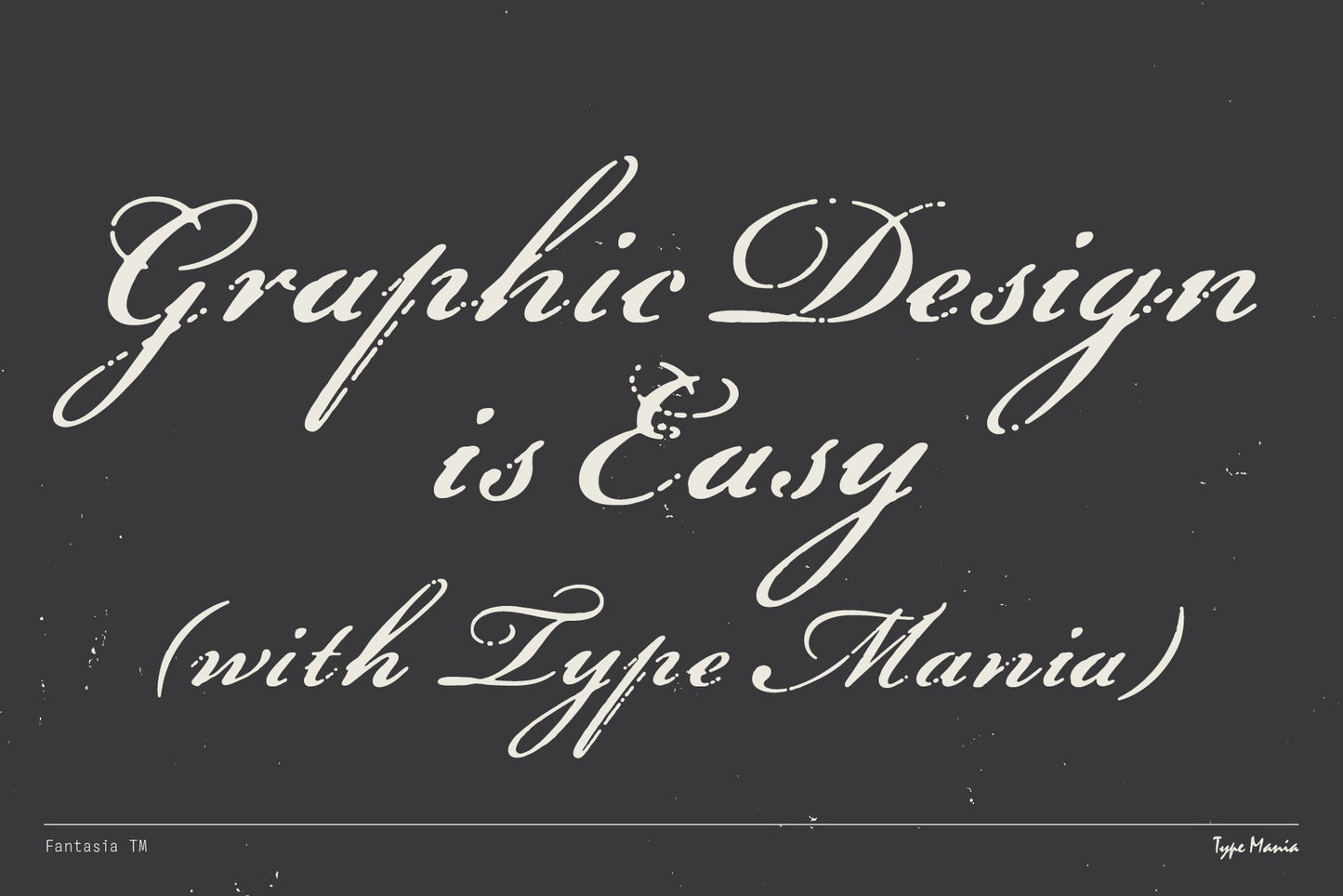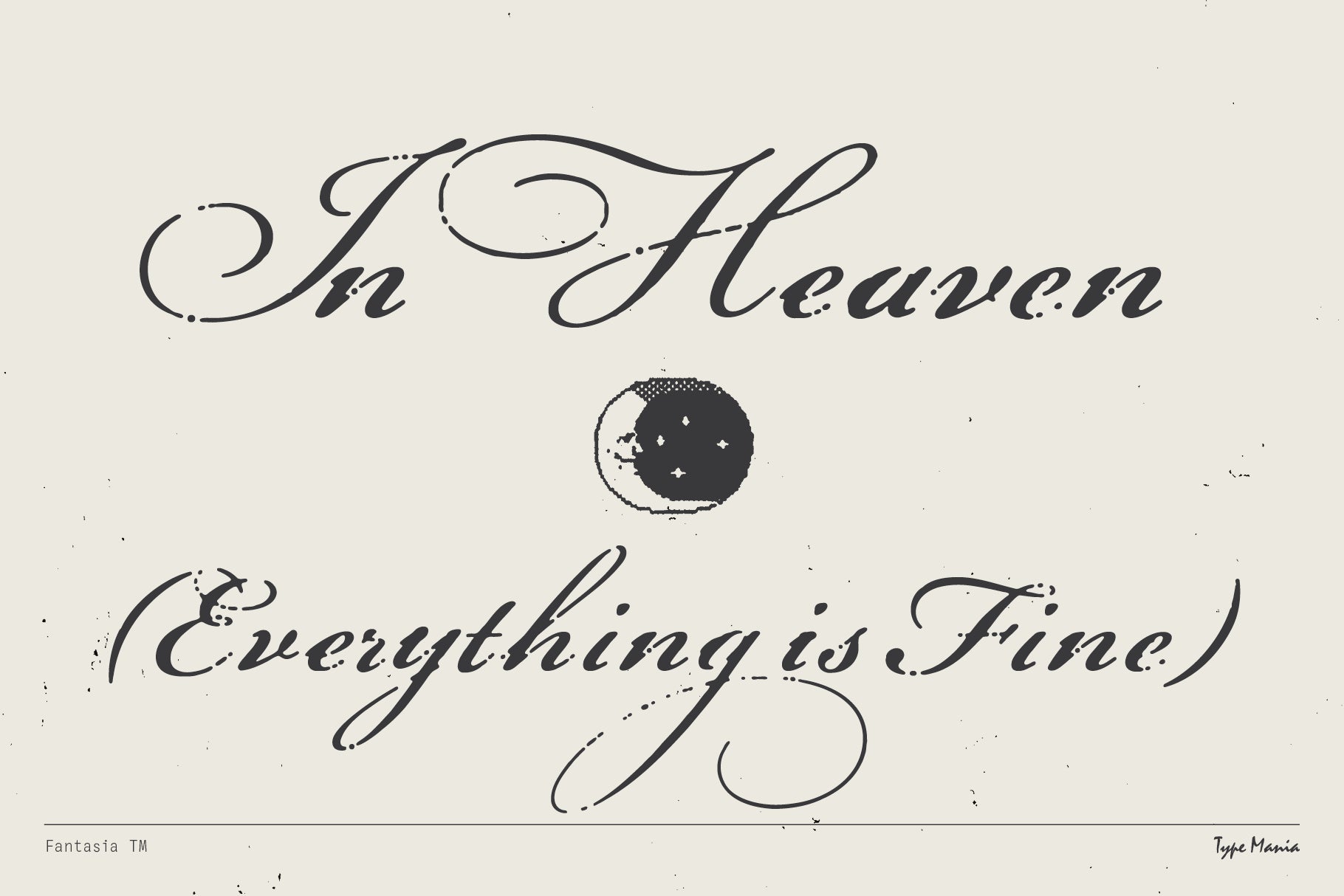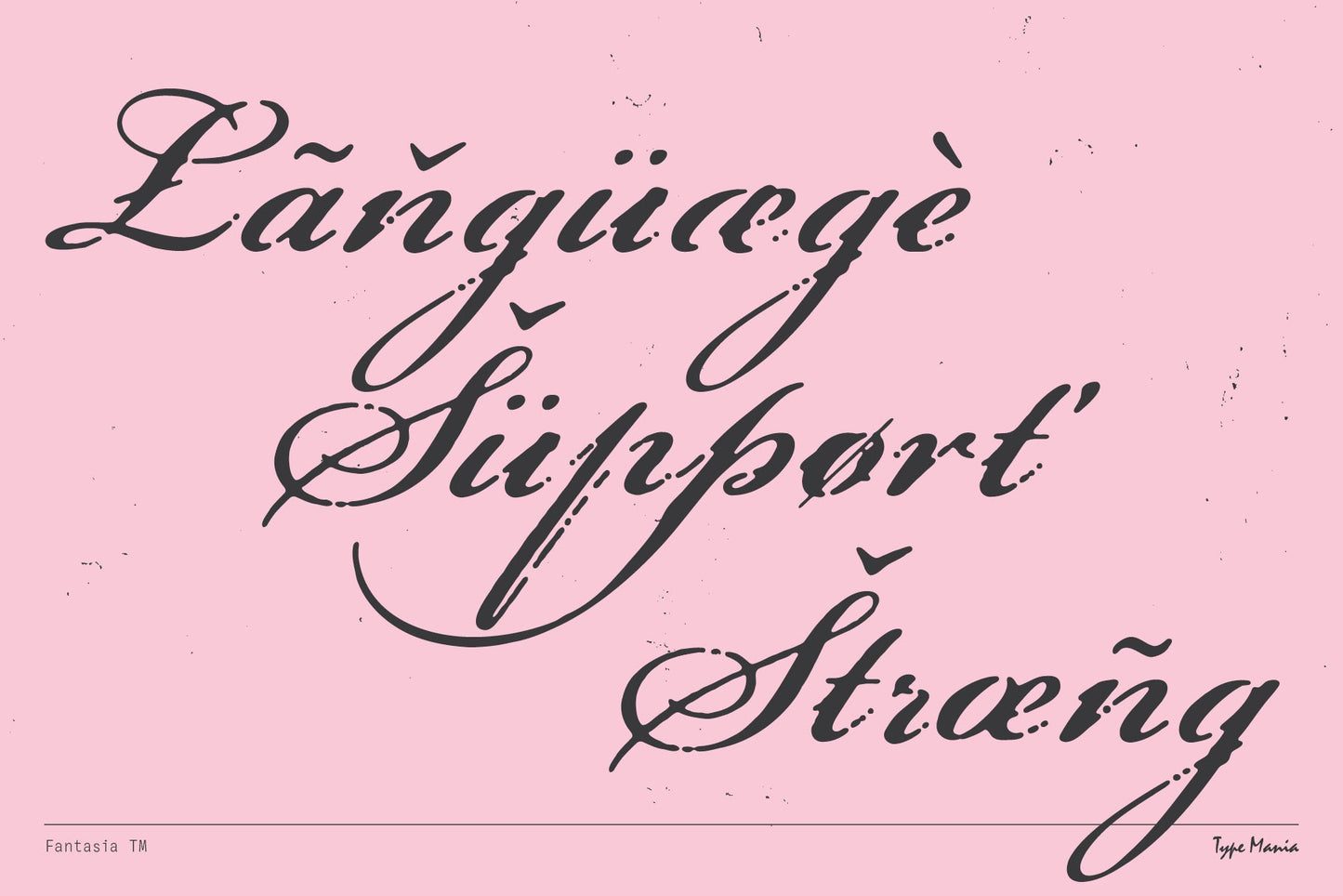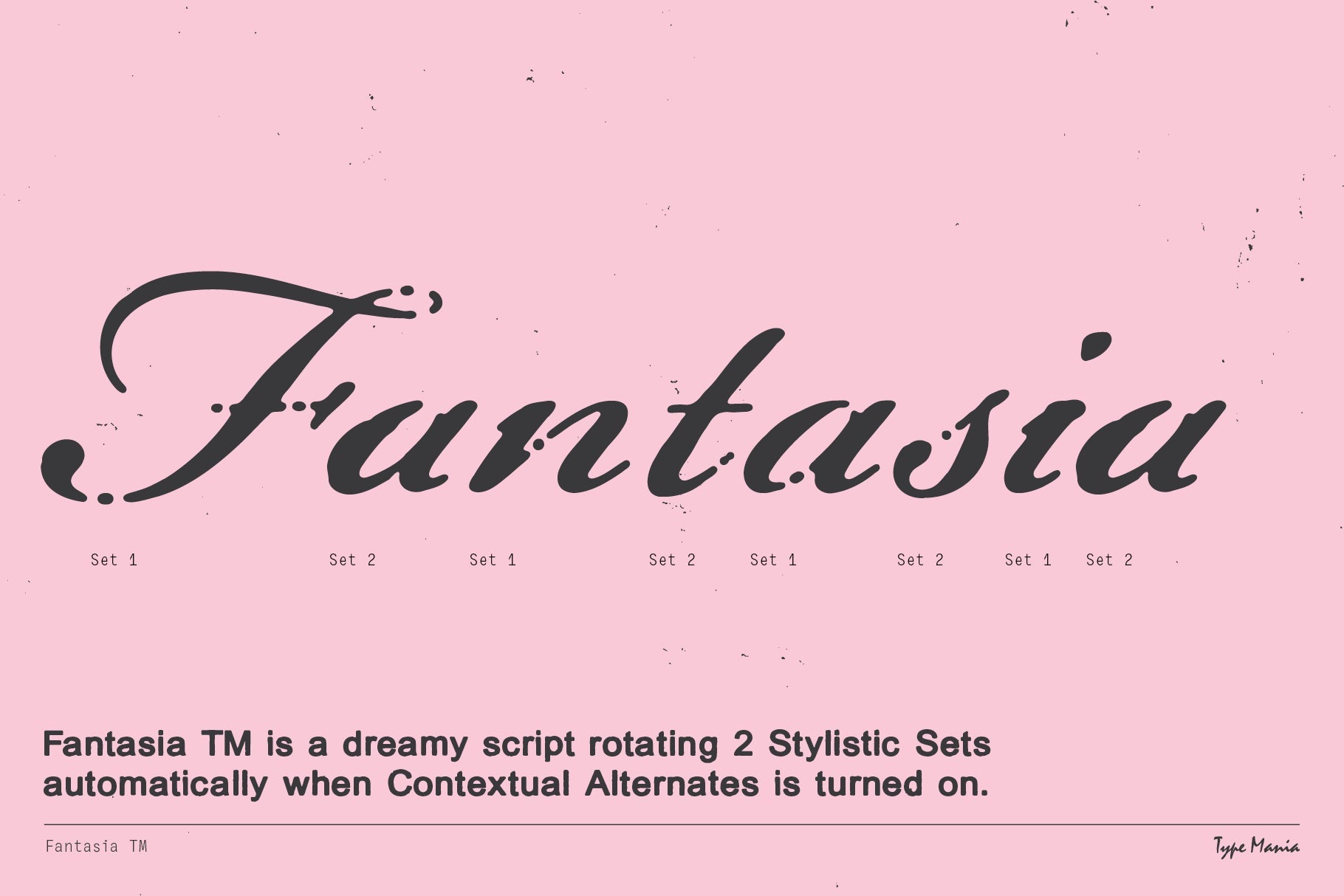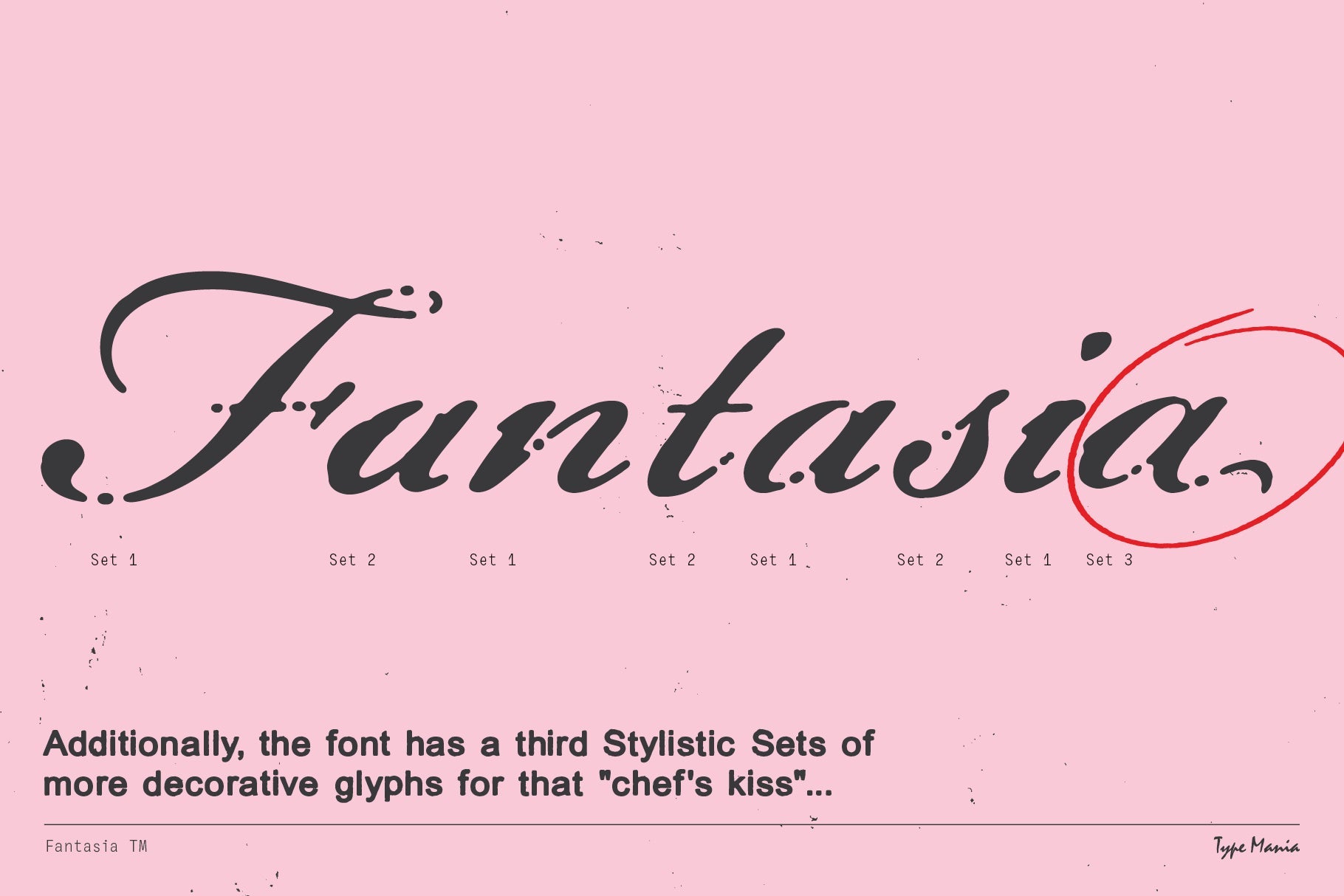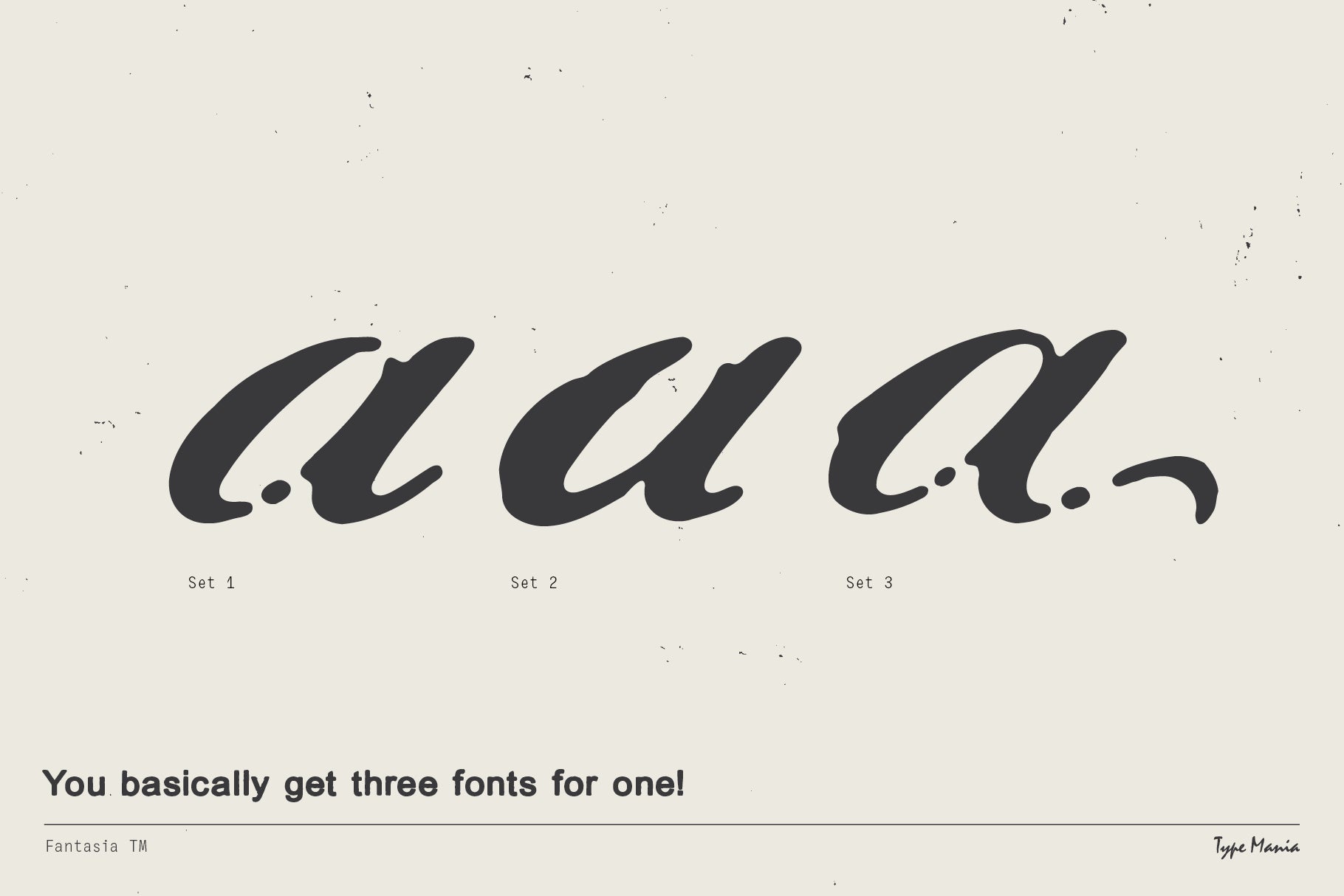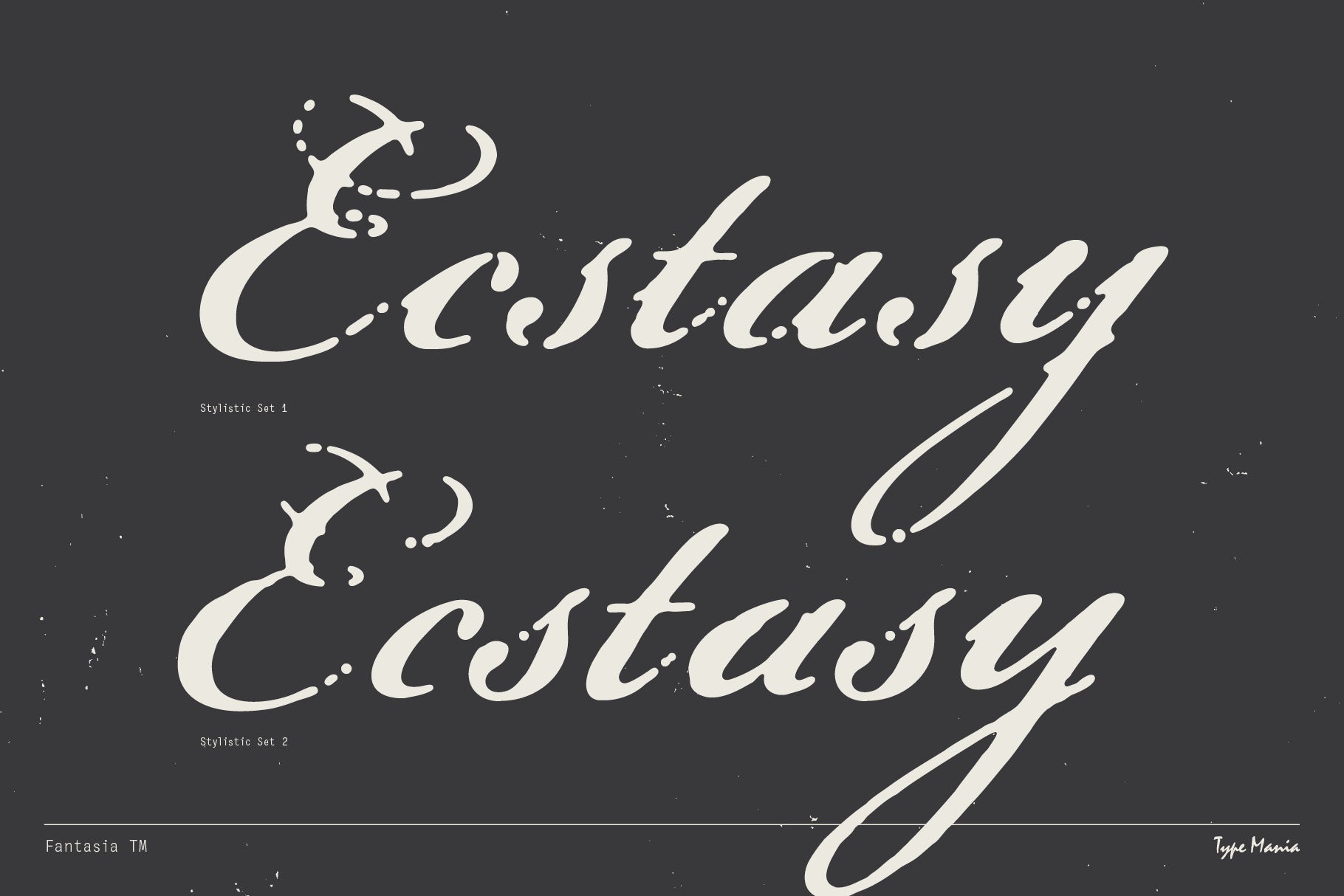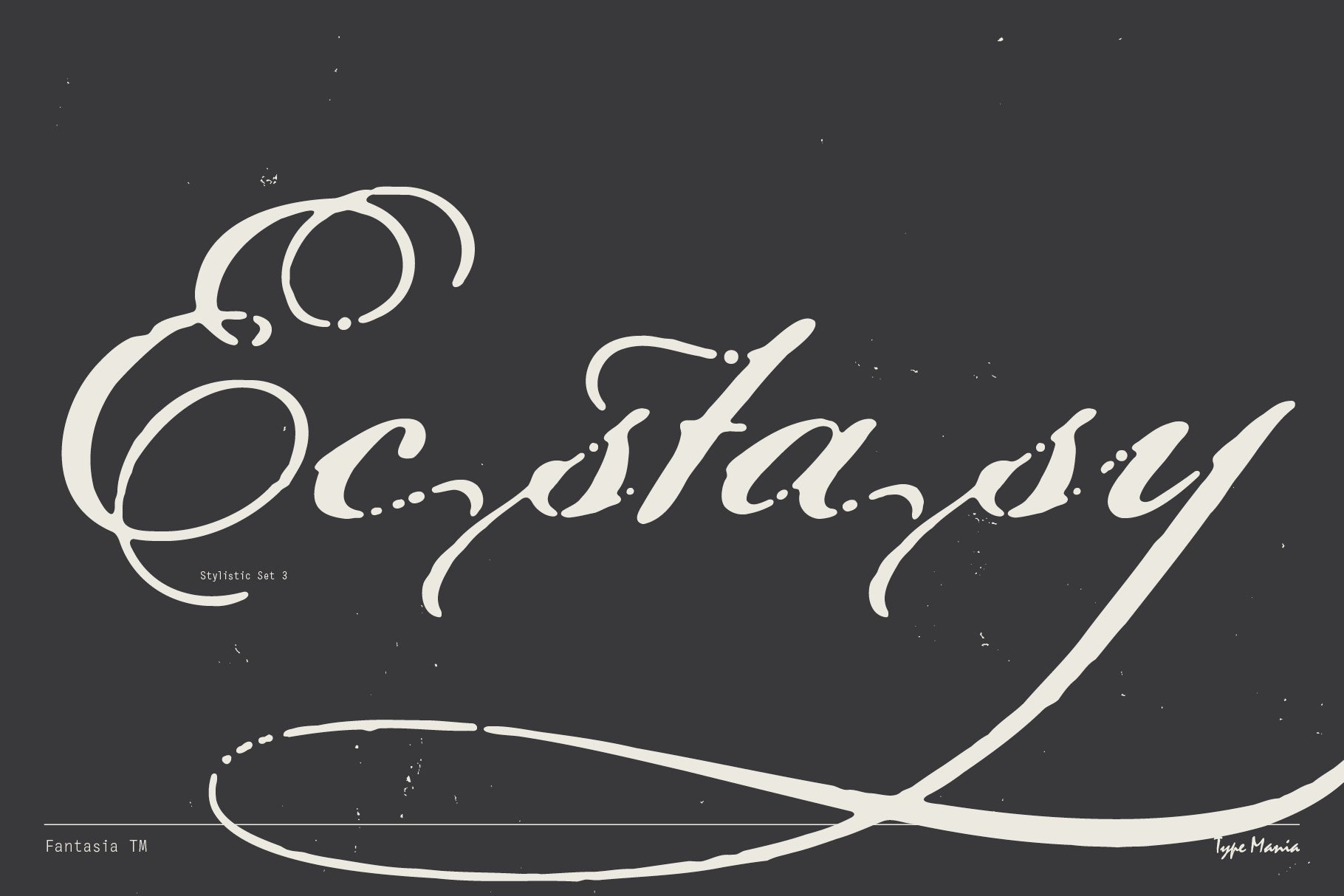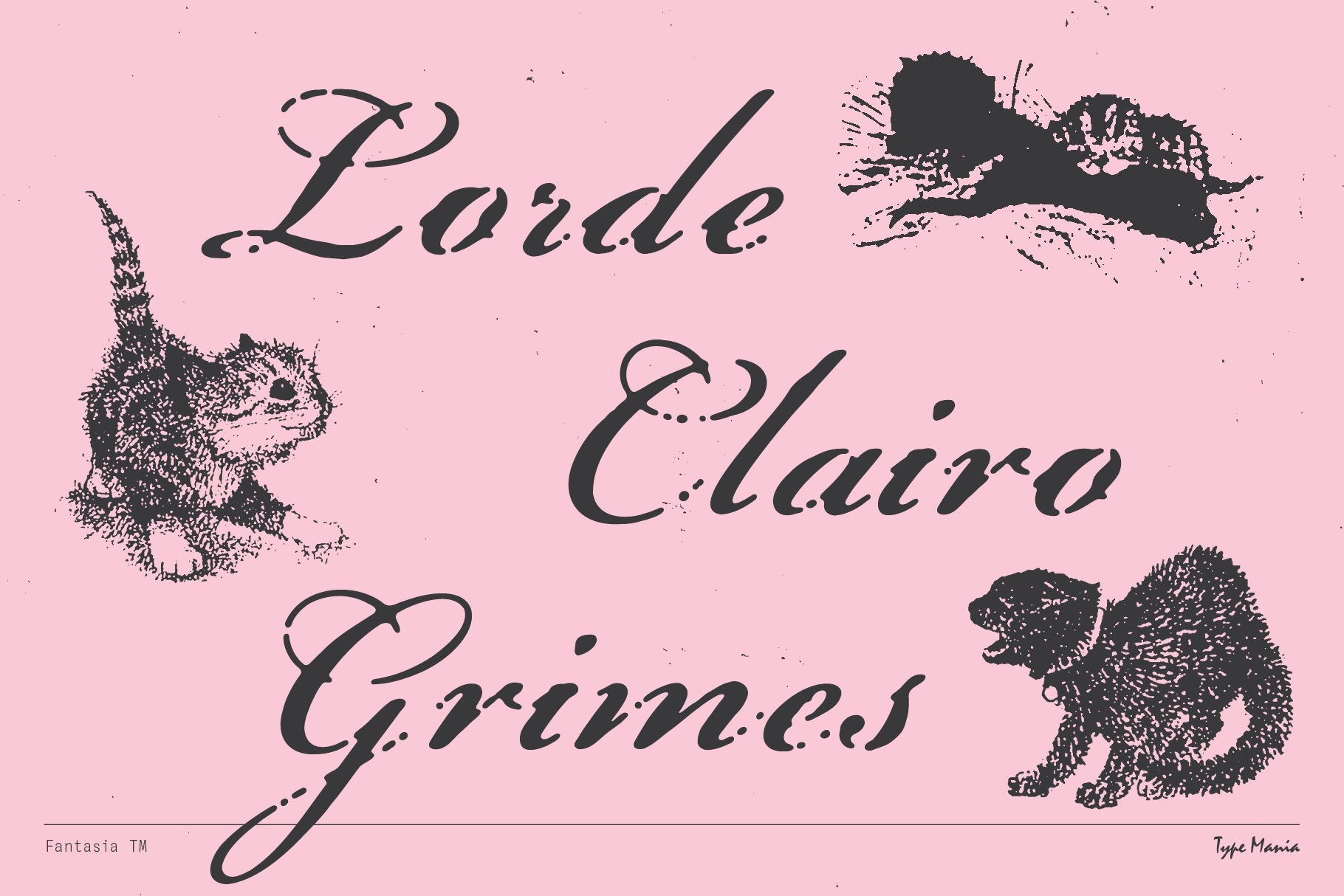
Fantasia TM
Fantasia TM is a script font treading the tightrope between edge and elegance. Its curves feature a worn texture, and the rotating stylistic sets guarantee an organic look & feel. Ideal for designs that need character without polish ‧₊˚ ☁️⋅♡𓂃 ࣪ ִֶָ☾.
- 3 stylistic sets
- The font is programmed to automatically shift between the stylistic sets 1 & 2